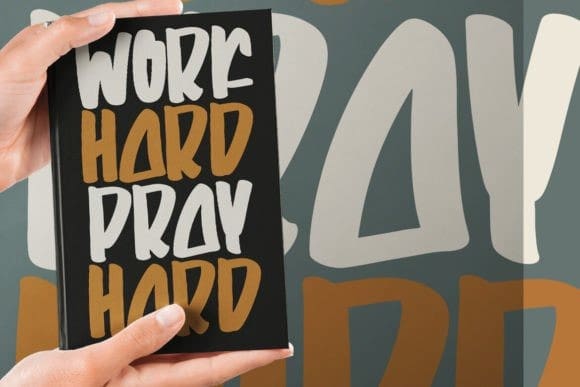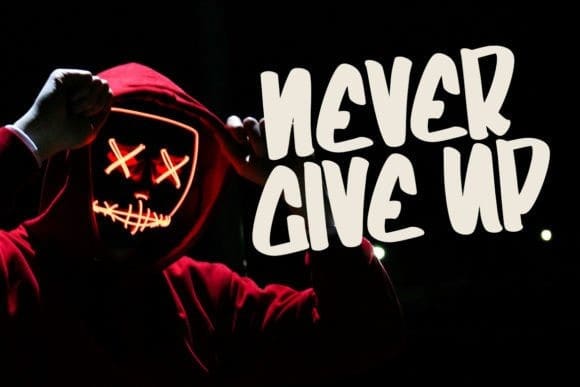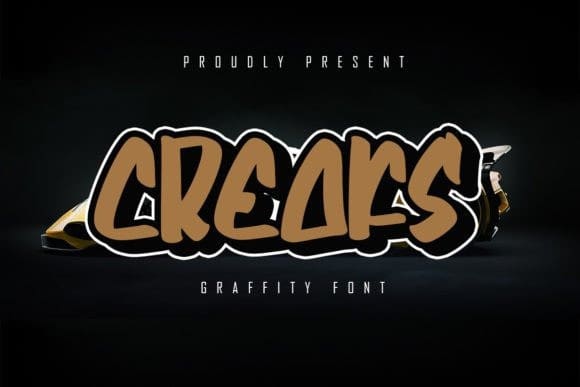
Creaks Display Font
Creaks Display Font. This font will very suitable for your fun project like children party, cute quotes, or any cute fun related projects. Grab it now !